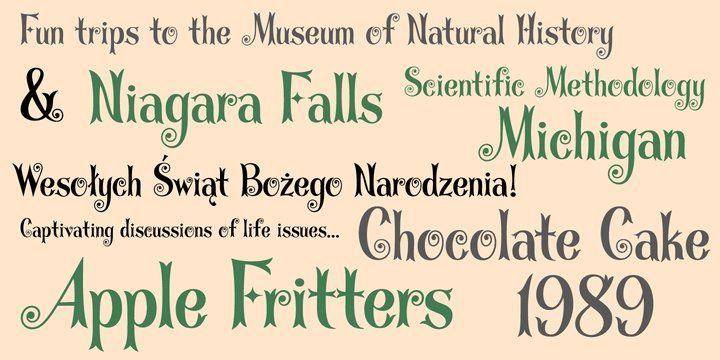
Cousin Beth
Font Family by Jukebox
Cousin Beth is an original Jukebox design based on a hand lettered Hawaiian music album cover from the 1960s. Its fun and whimsical nature make it a perfect font for a variety of projects. The split ends of the letter strokes and curly cues add an organic nature to the typeface that makes it very appealing and approachable. I particularly like the star-shaped crossbar on the capital F and H. The name of the font comes from a real person?my first cousin on my mom's side of the family.